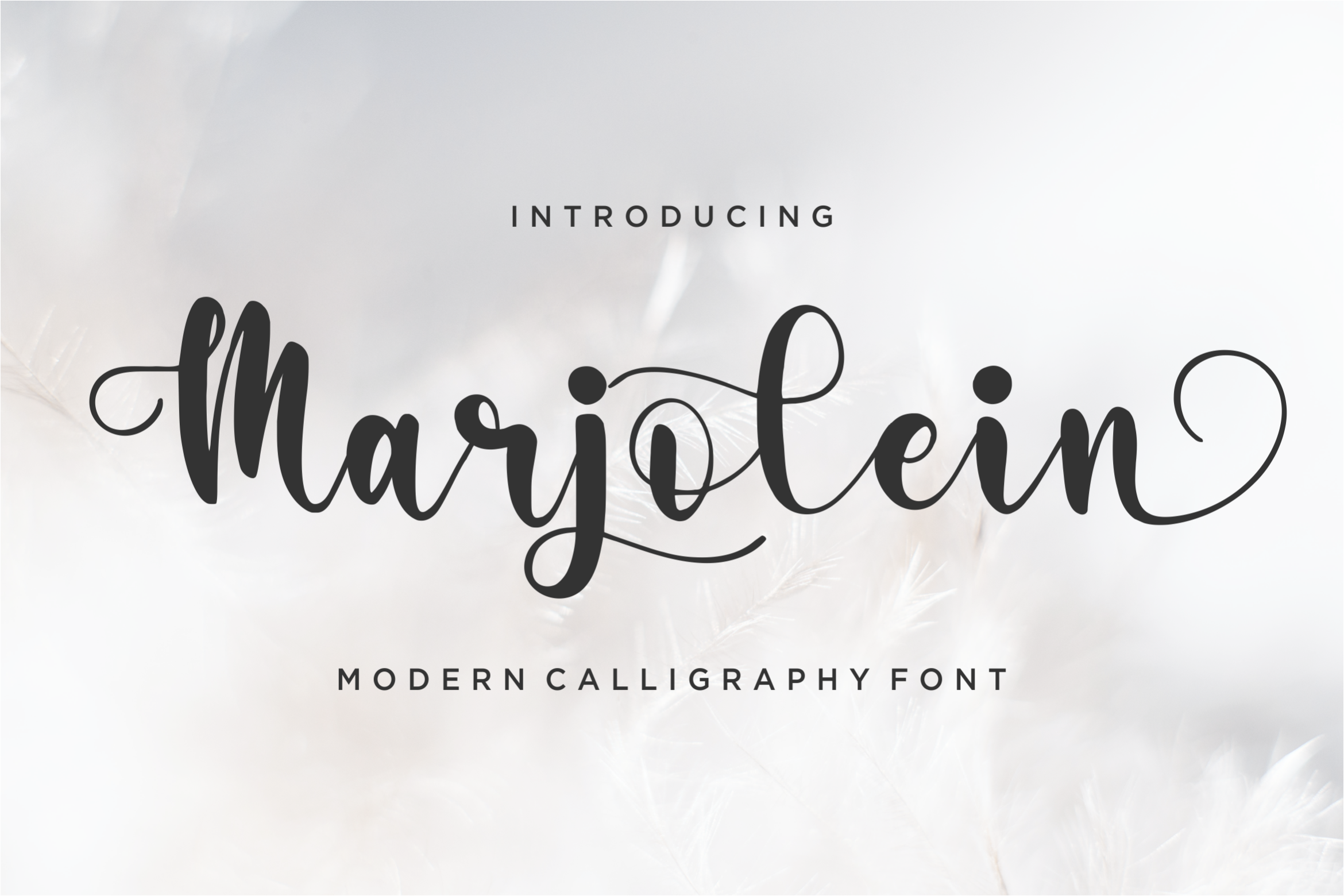
Marjolein Font
Marjolein Calligraphy Font
This is a thin lettered and graceful script font. Fall for its delicate style and use it to create outstanding projects. This font is PUA encoded which means you can access all glyphs and swashes with ease!